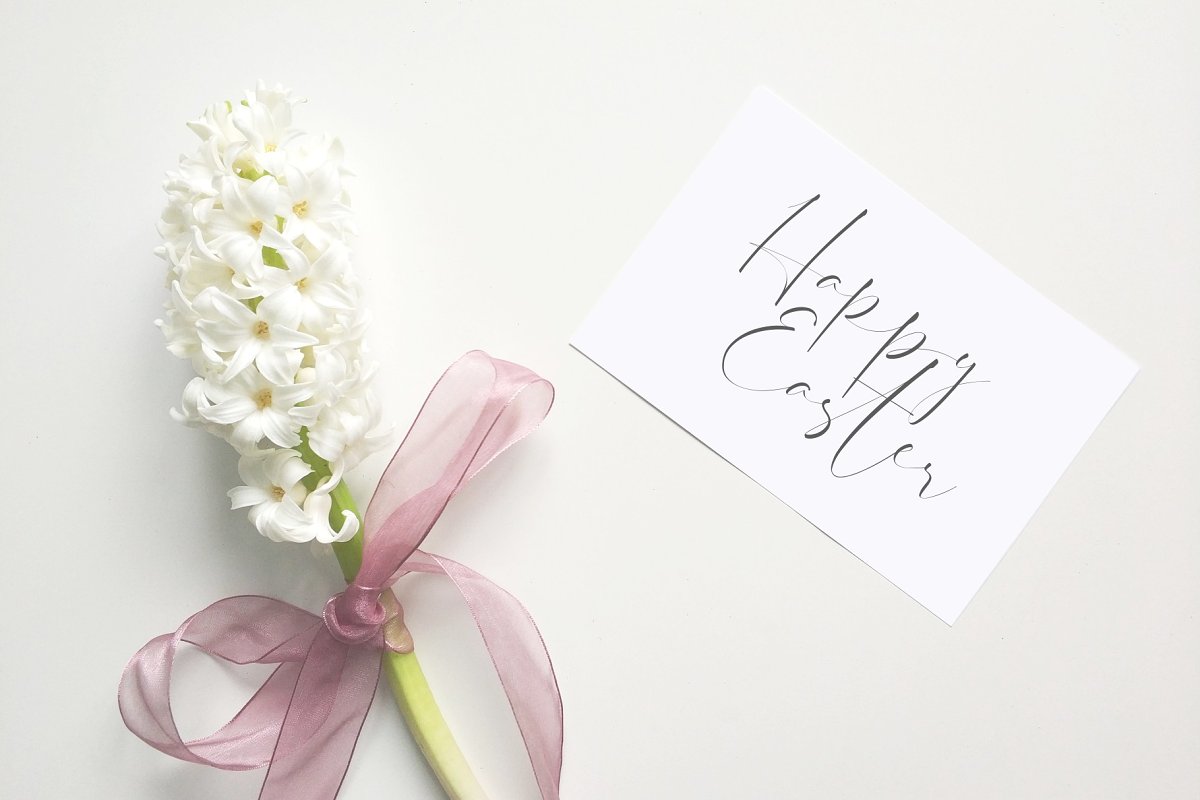
Dattebayo Signature Font – Free Demo
Hello Guys! We always want to introduce the best typography to you, and now is a special handwriting, it’s completely designed by hand. A signature font perfect for all your design and print projects. Introducing Dattebayo Font. Dattebayo suitable perfectly for branding, logos, business cards, posters, invitations, greeting cards, news, product packaging, blog posters, all including personal charms etc. This is a great script style font that you can pair with your favourite sans serif font.